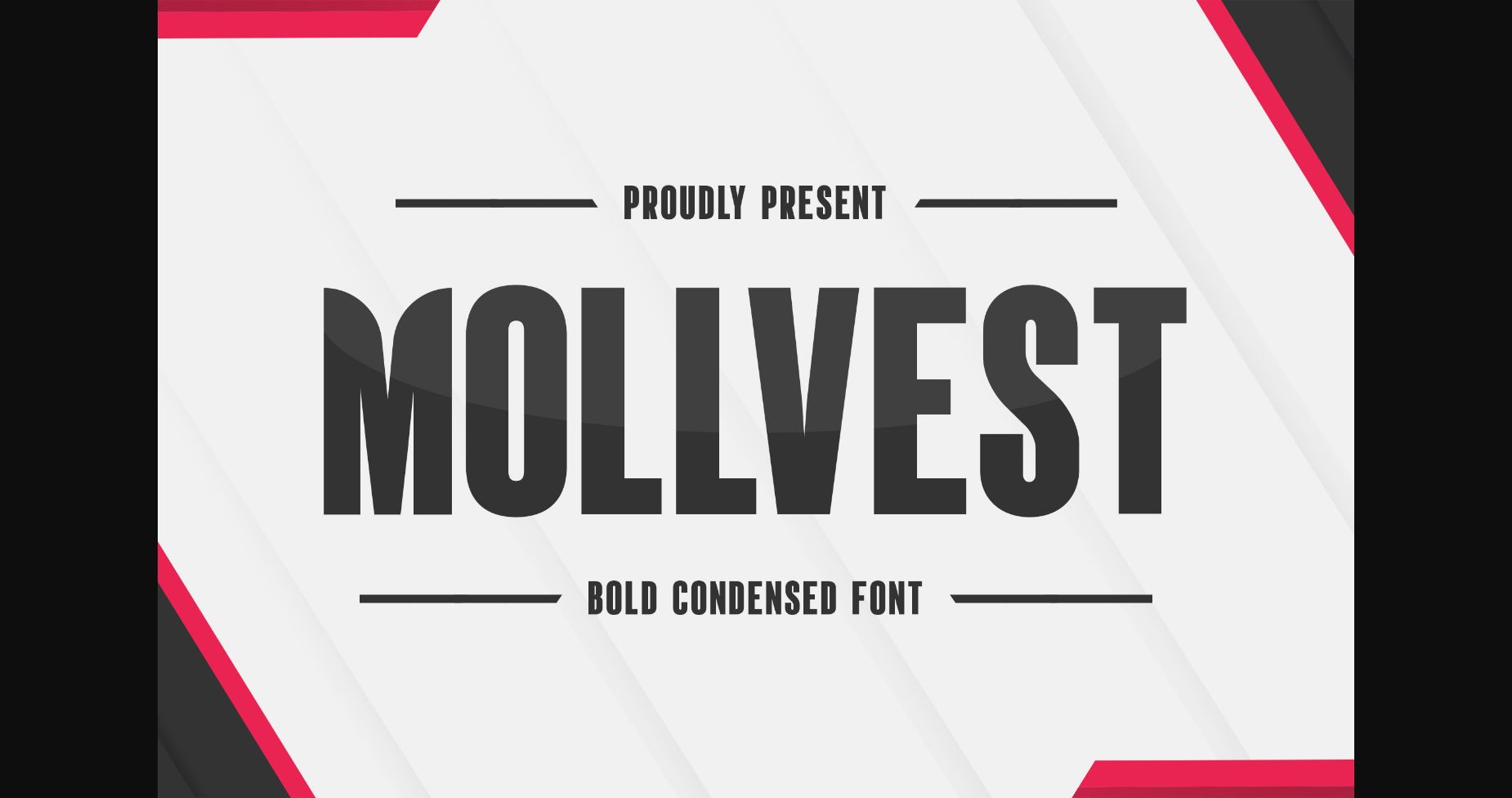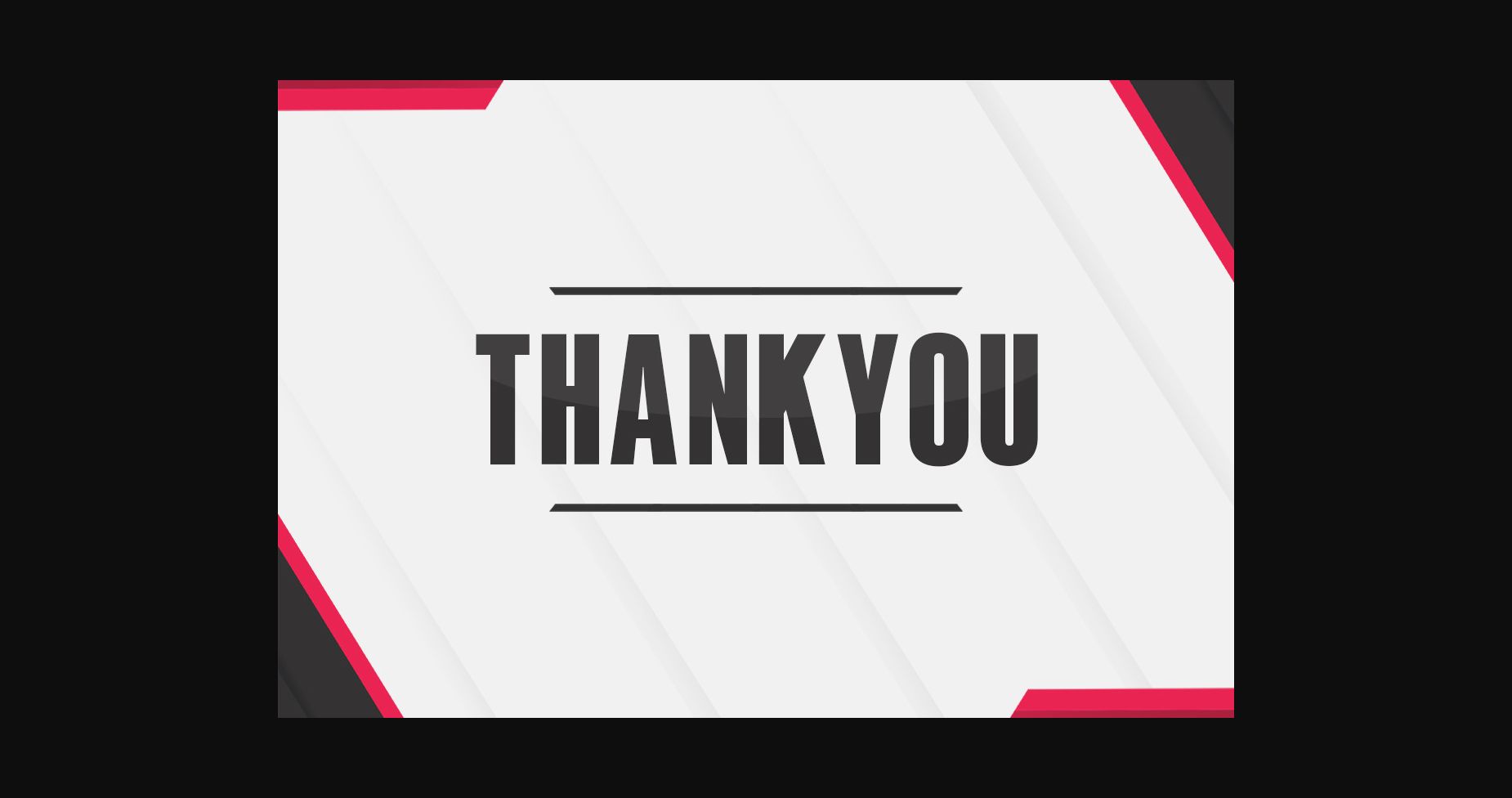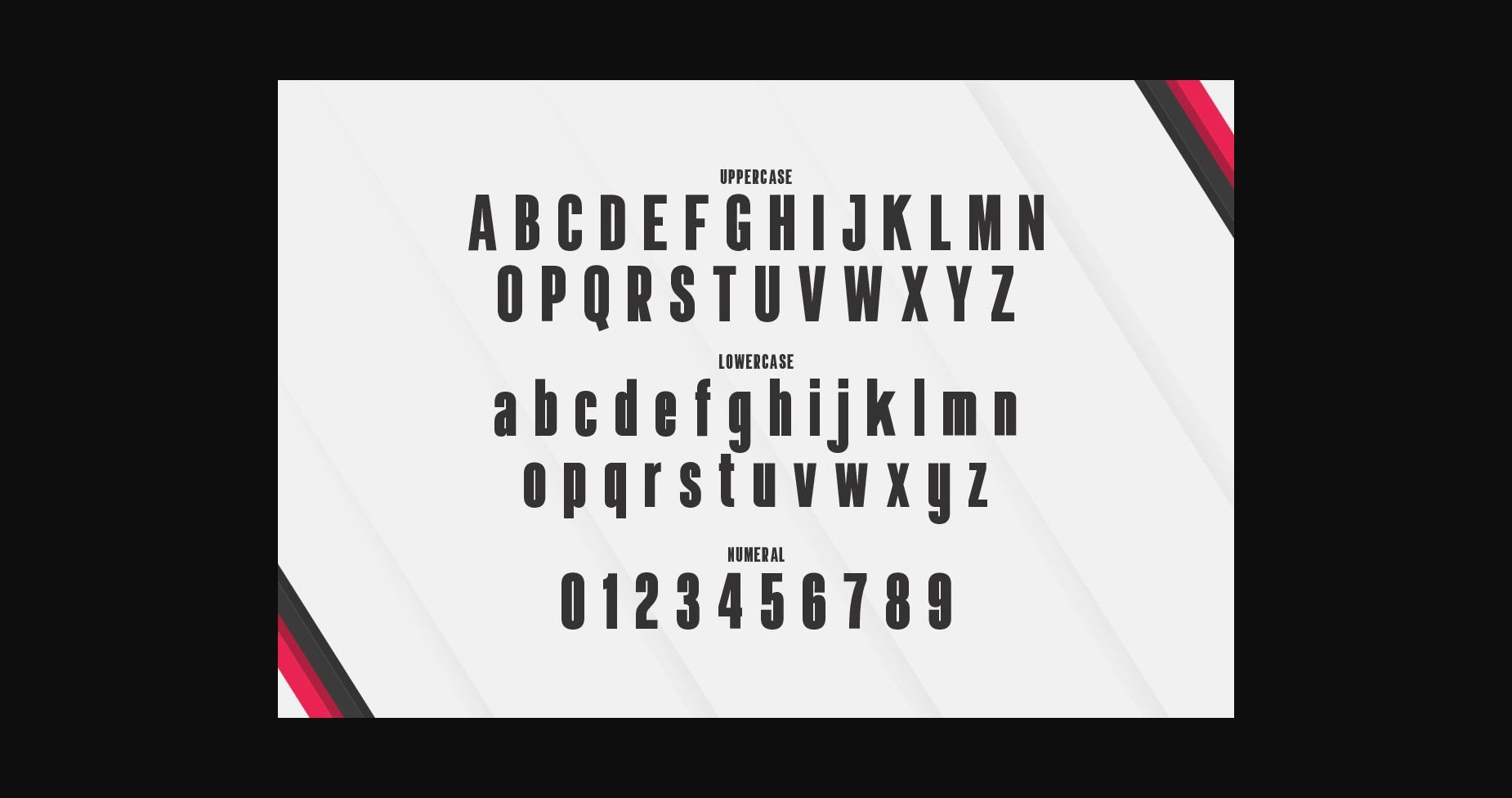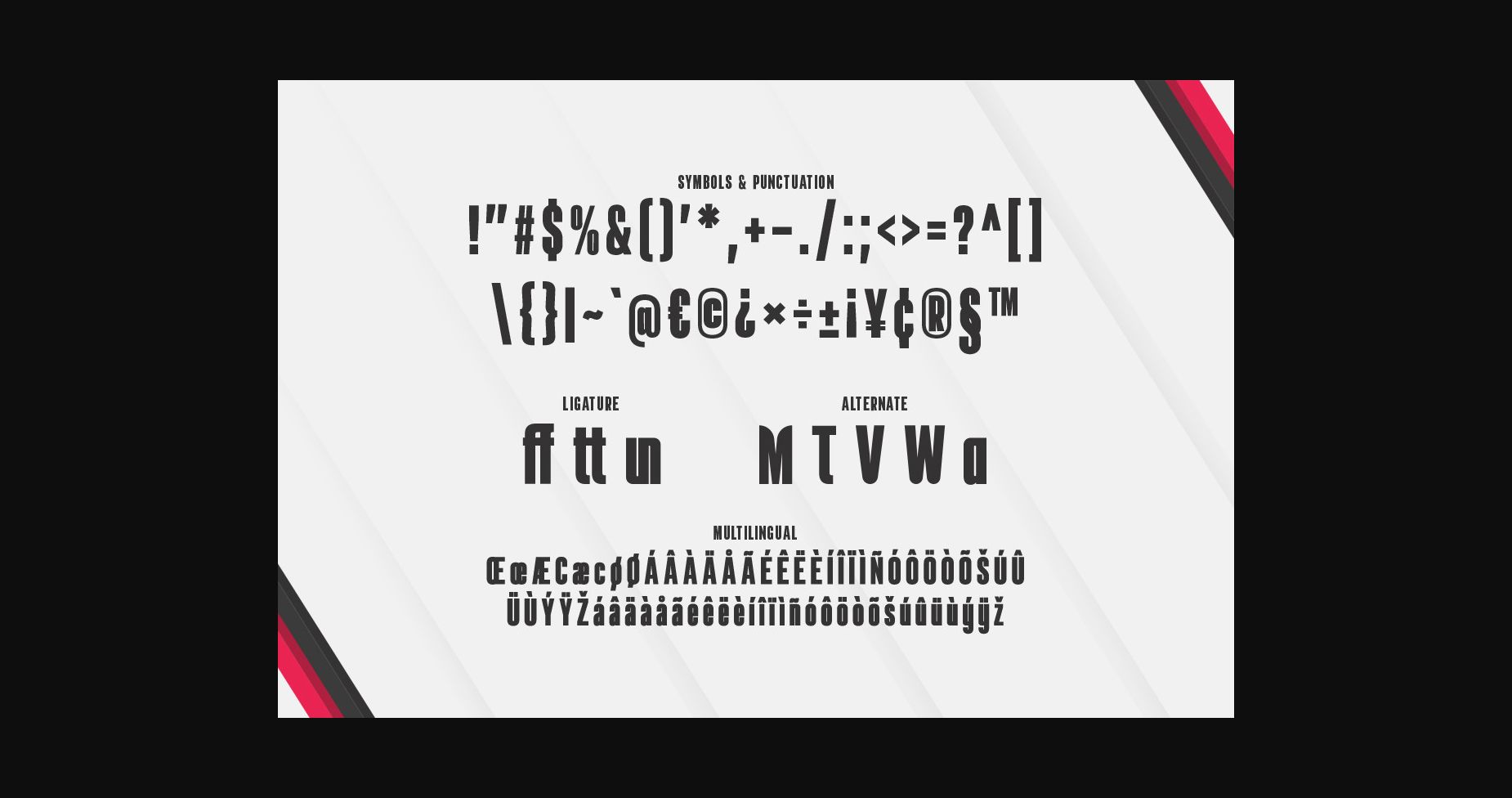
About Mollvest Font
Mollvest is a bold and condensed sans serif font that commands attention and leaves a lasting impression. With its strong and compact letterforms, “Mollvest” exudes confidence and impact. Each character is meticulously crafted to provide a sleek and modern look, making it perfect for headlines, logos, posters, and more.